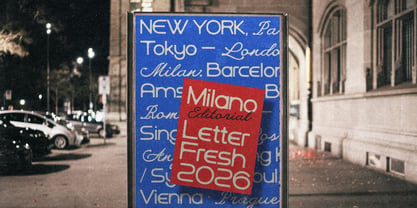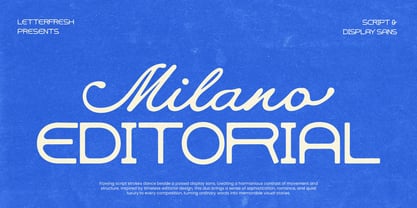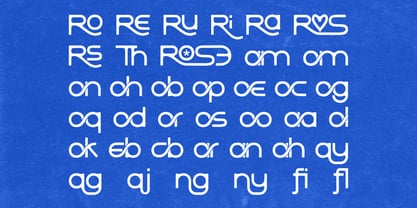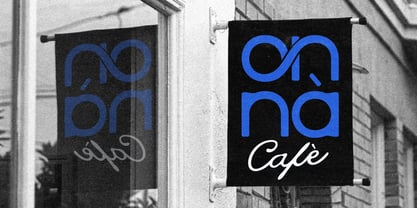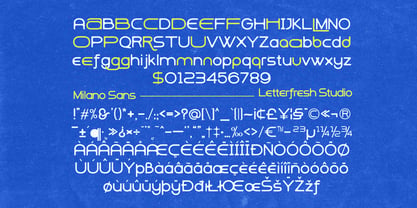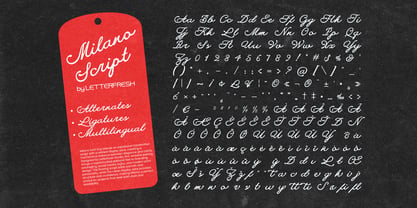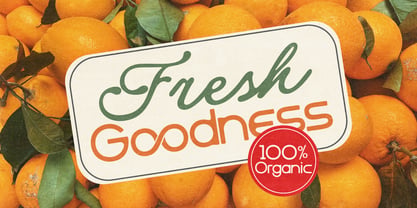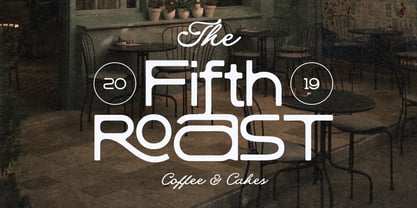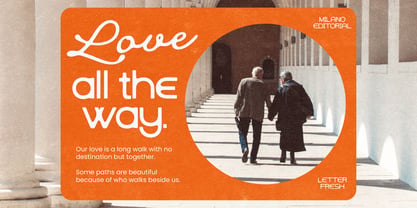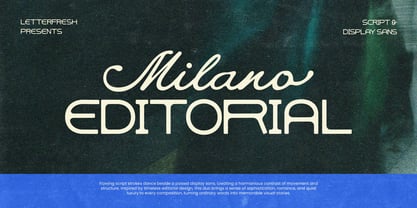
Milano Editorial Vintage Script
by Letterfreshstudio
The Milano Editorial Vintage Script Font Family was designed by Rizki Andika and published by Letterfreshstudio. Milano Editorial Vintage Script contains 2 styles and family package options. More about this family
Milano Editorial Vintage Script a sweet and smooth font duo! With its chunky, rounded sans and a flowing, handwritten-style script, this playful pair brings just the right mix of bold and friendly. Perfect for product labels, greeting cards, social media posts, branding projects, logo designs, packaging, quotes, and more. I hope you enjoy these fonts; feel free to leave a comment if you have any thoughts or feedback. Thank you for purchasing, and have fun!